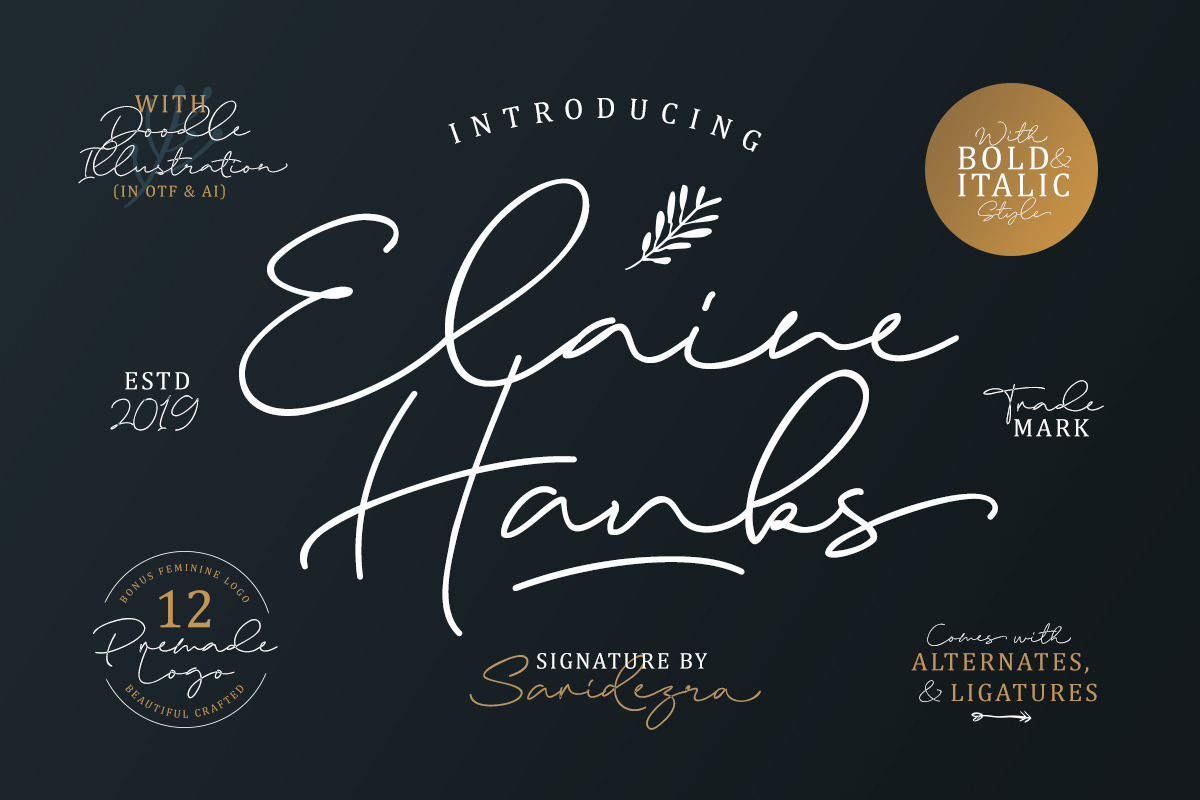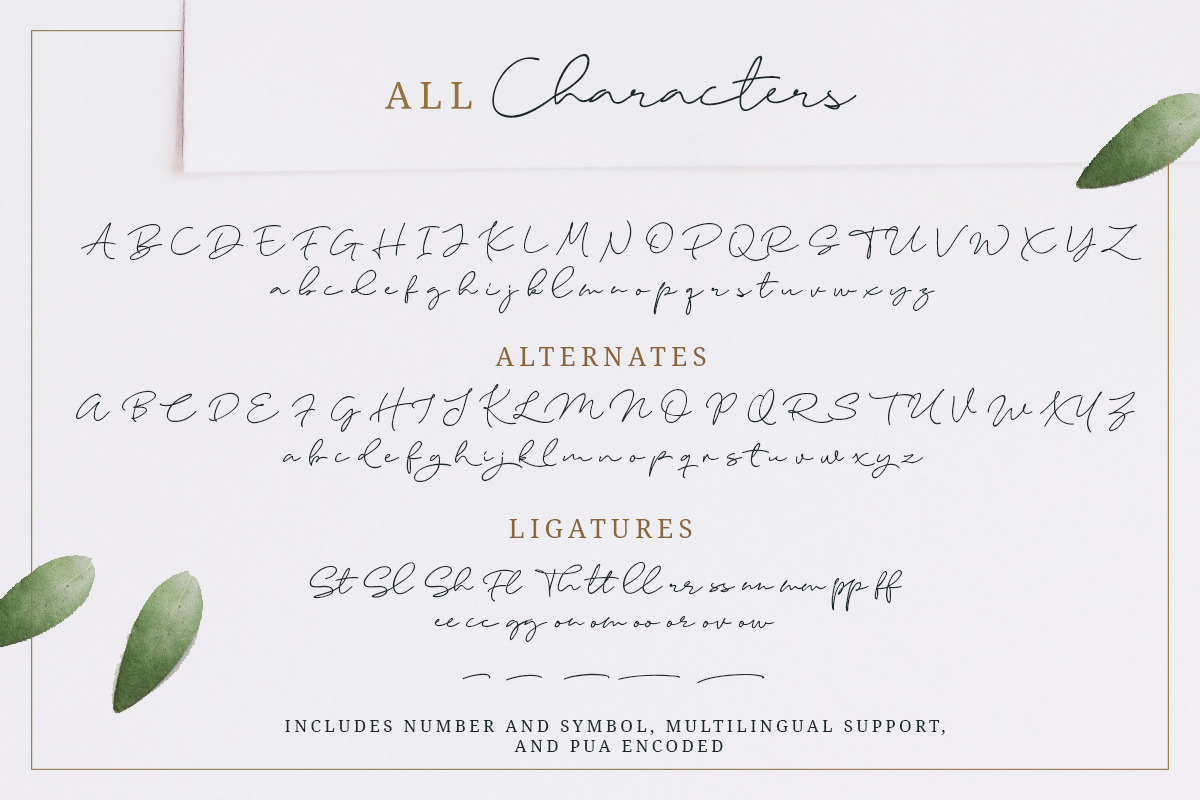
Elaine Hanks (+Feminine Logo Pack)
Introducing, Elaine Hanks, A Beautiful Signature with EXTRAS!
Elaine Hanks is a fashionable signature that contain lowercase, uppercase, symbol, and also support multi language. There's a lot ligatures in this font. Elaine Hanks also comes with doodle font that you can use to make a logo for branding, beautiful fashion design, suitable for wedding invitation, or handwritten quote. Also already PUA Encoded. Plus 12 Premade logo for you!
Foreign Languages Support: ÀÁÂÃÄÅÇÈÉÊËÌÍÎÏÑÒÓÔÕÖØÙÚÛÜÝßàáâãäåæçèéêëìíîïñòóôõöøùúûüýÿ